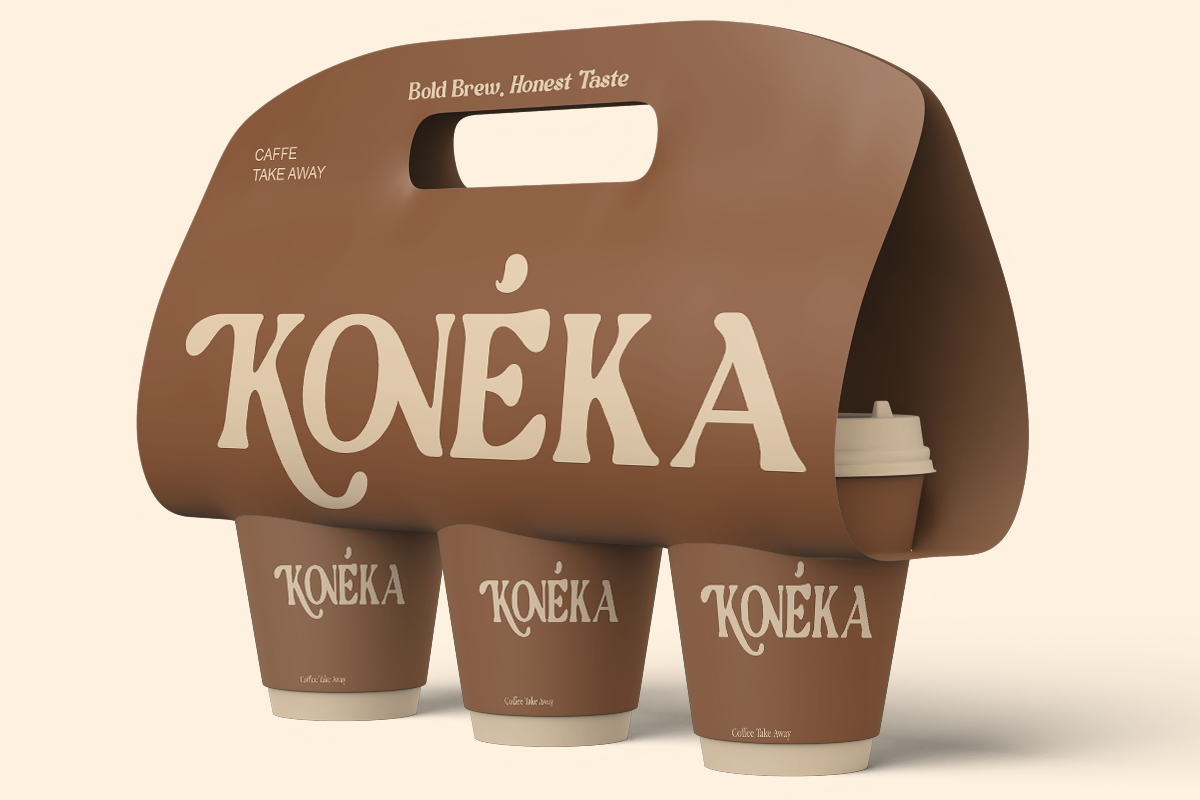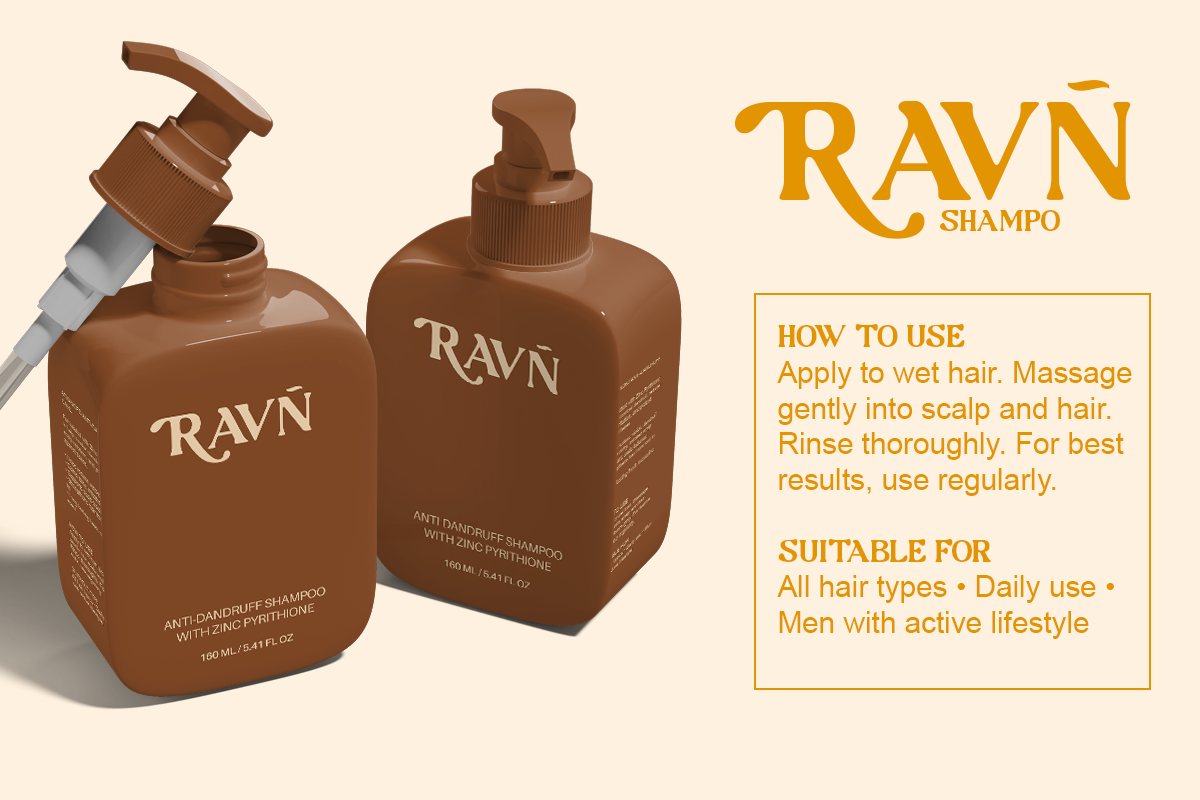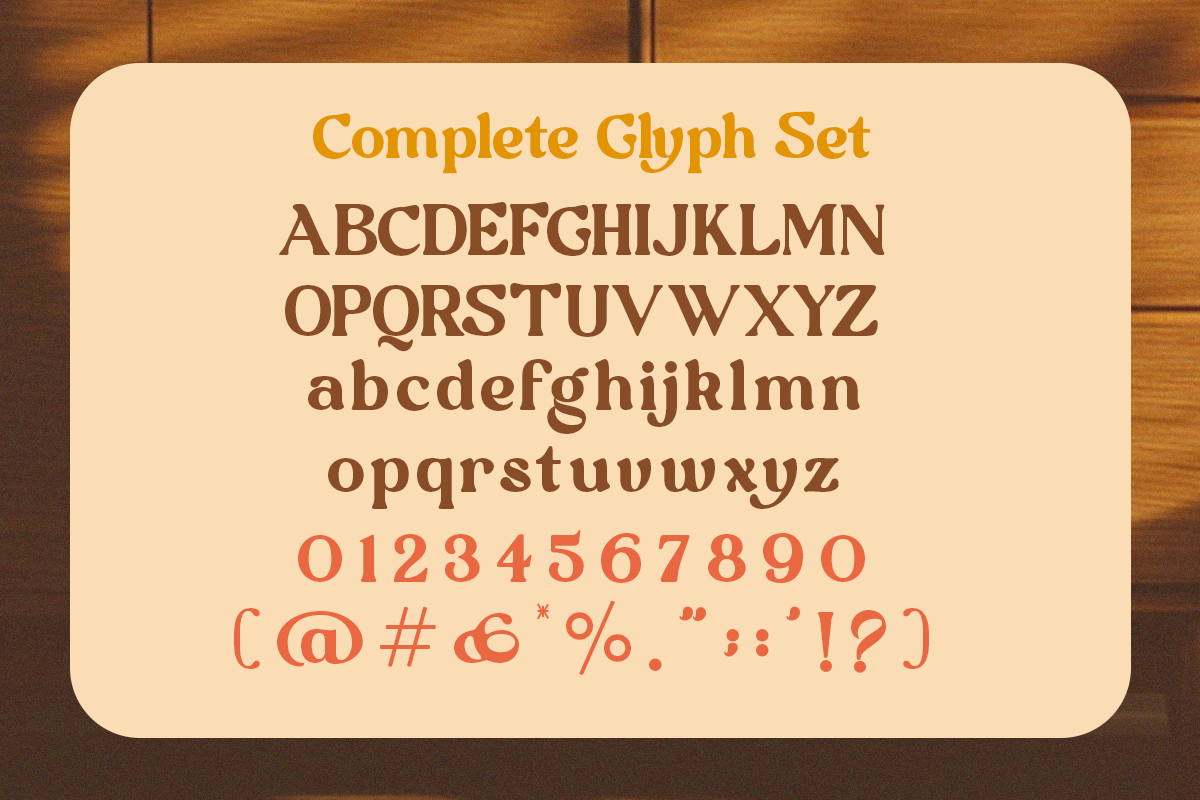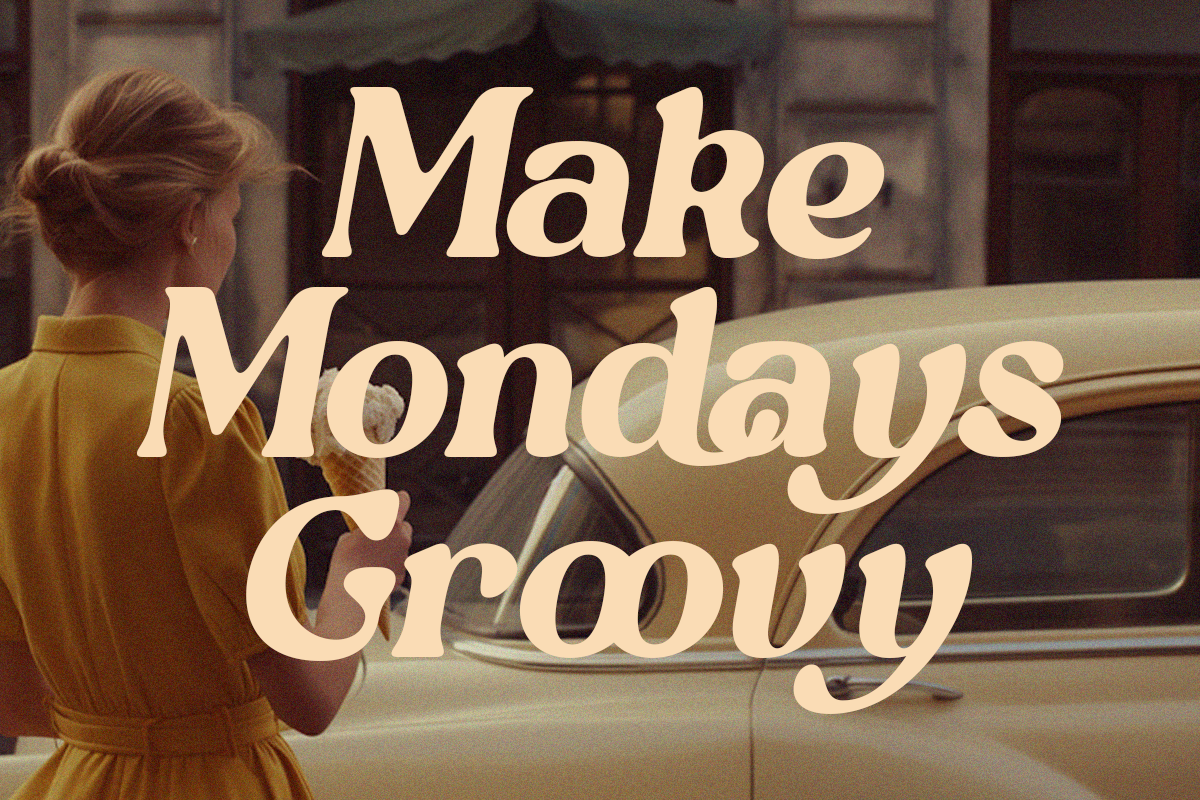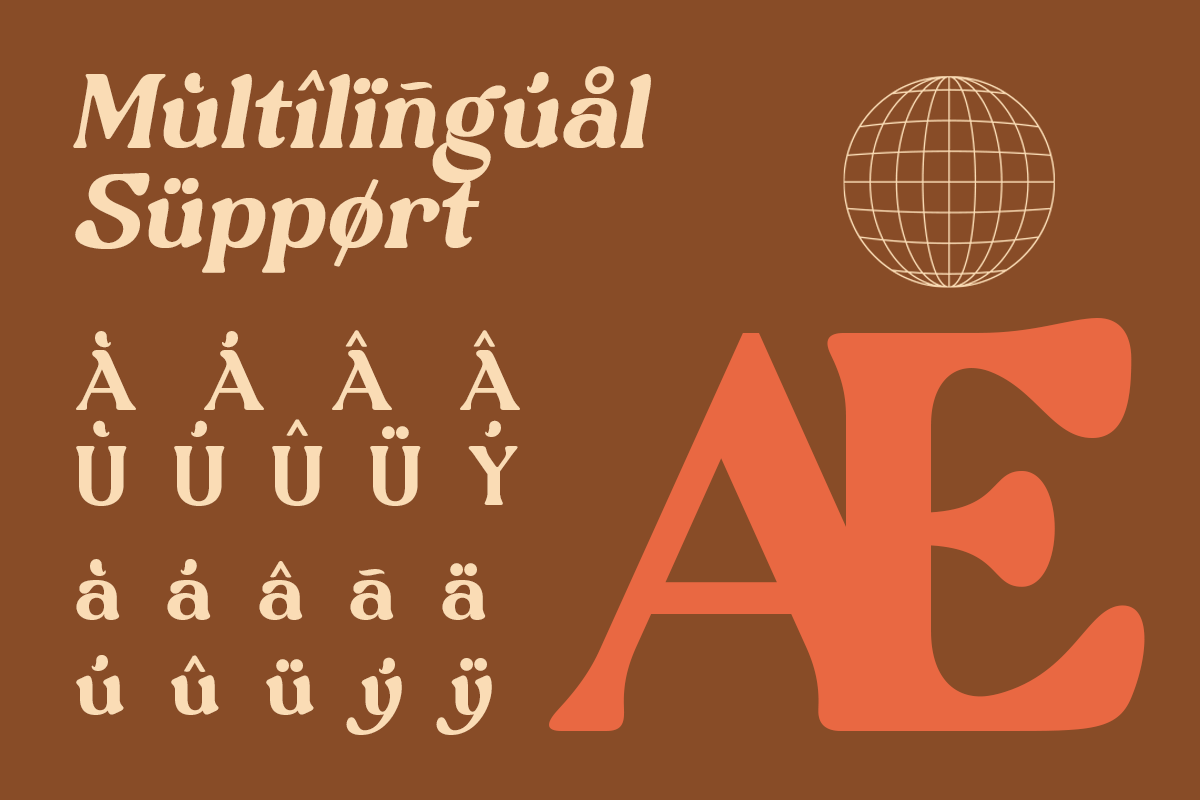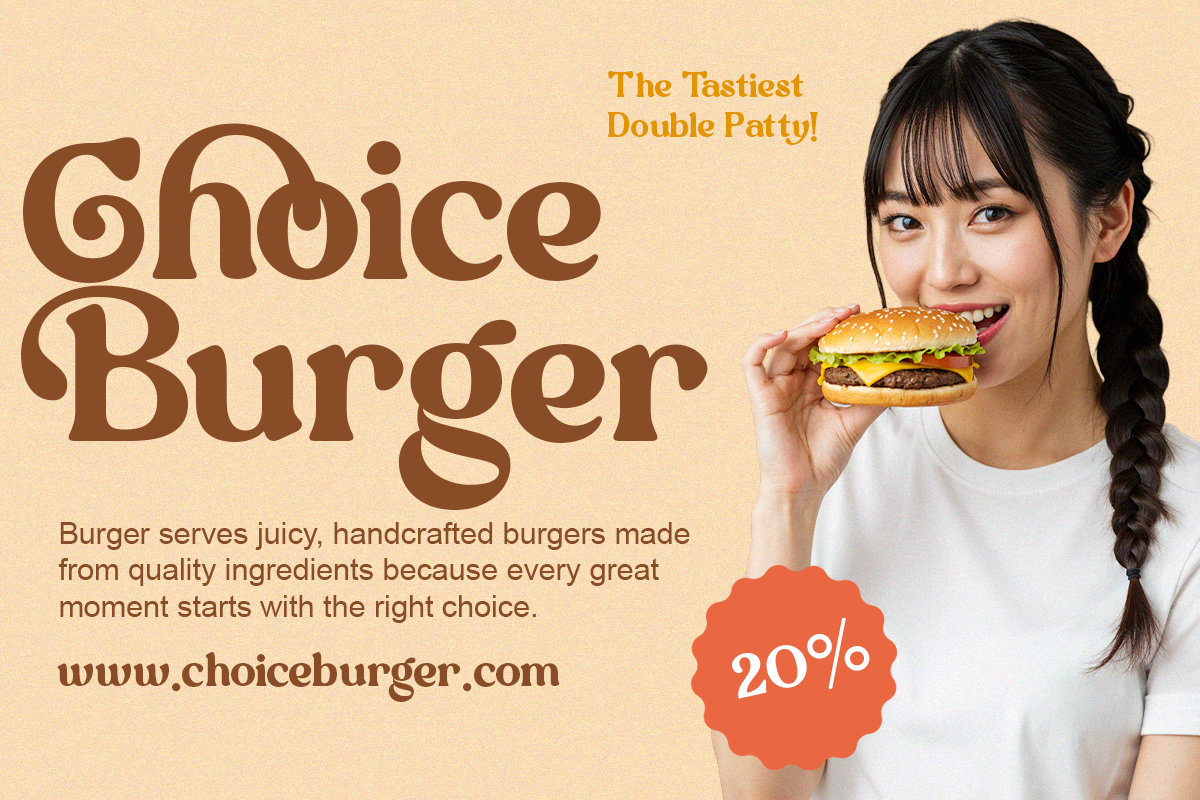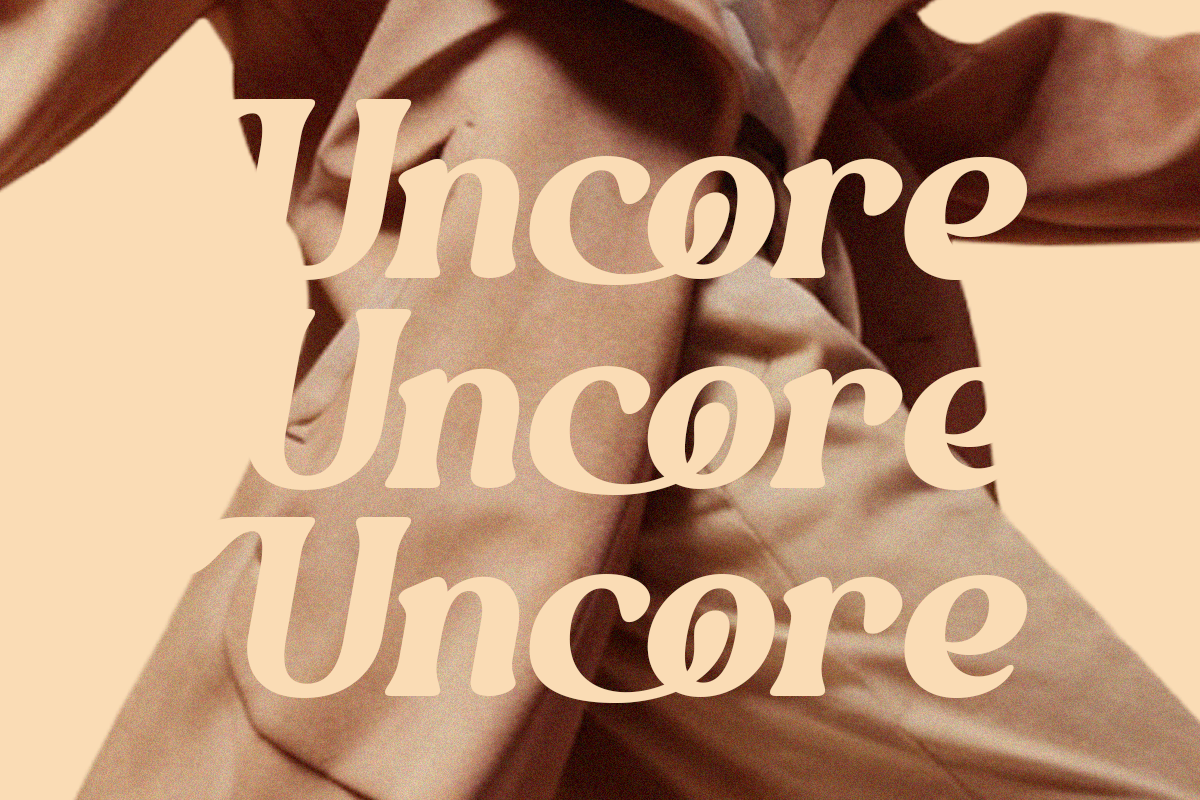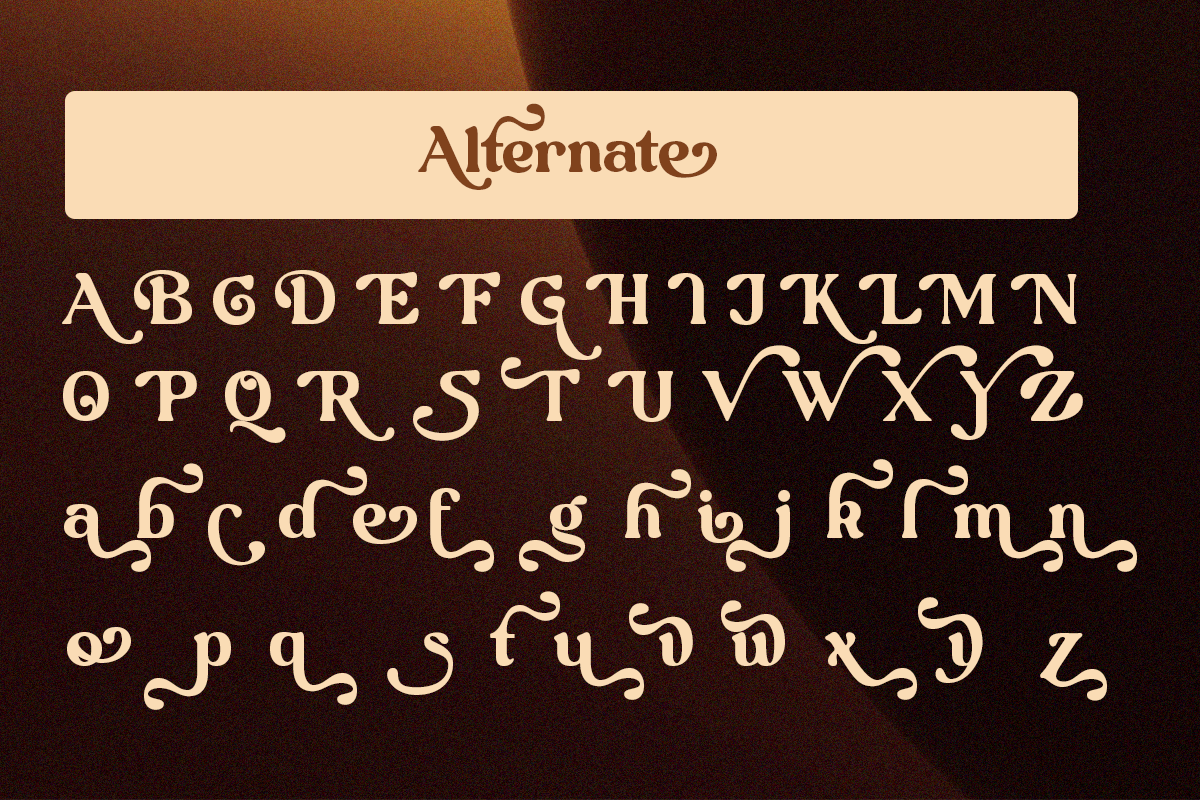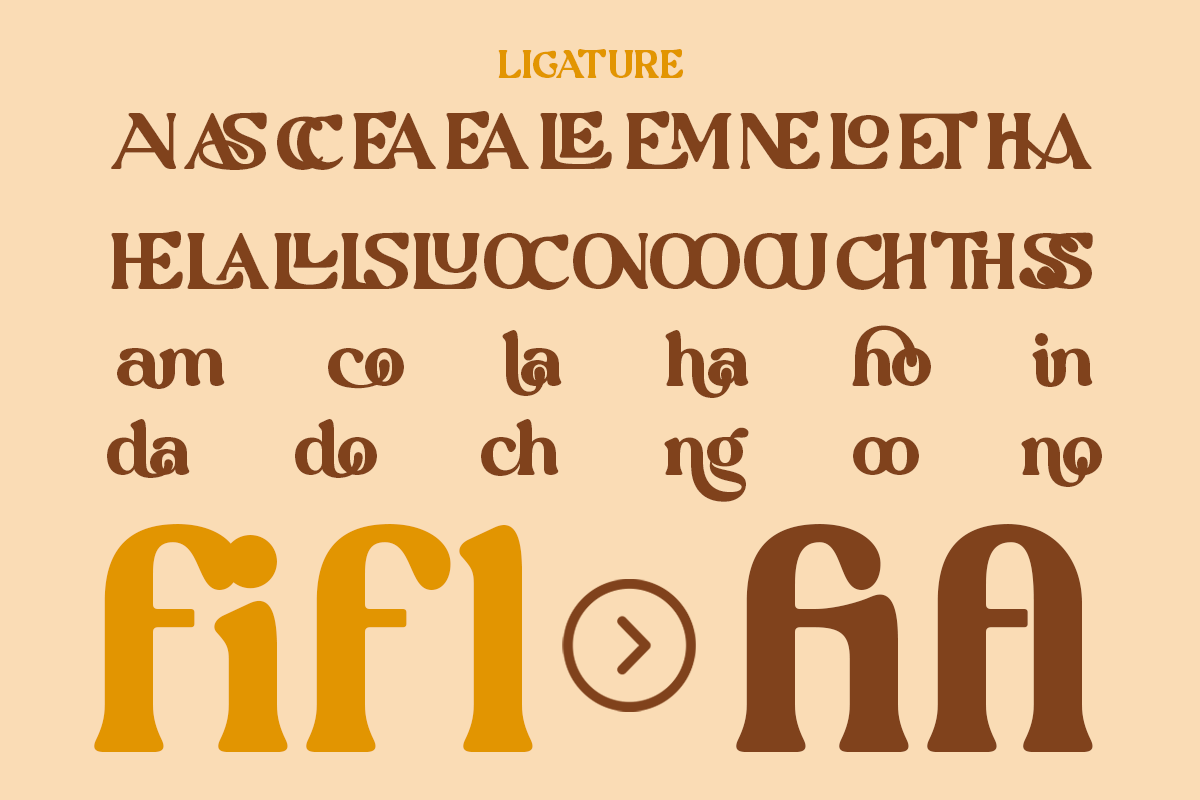
Qontra - Retro Vintage Bold Serif
Qontra is a bold retro serif typeface crafted for vintage-inspired design. Its strong curves and decorative forms create a unique and nostalgic visual identity.
Perfect for posters, logos, packaging, and branding, Qontra delivers a striking and memorable typographic presence. It blends classic retro aesthetics with modern usability.
Designed for creatives who want bold, expressive, and standout typography.
- Regular & Italic
- Alternates & ligatures
- Decorative swash elements
Retro branding, vintage logos, poster design, packaging, signage, creative display design